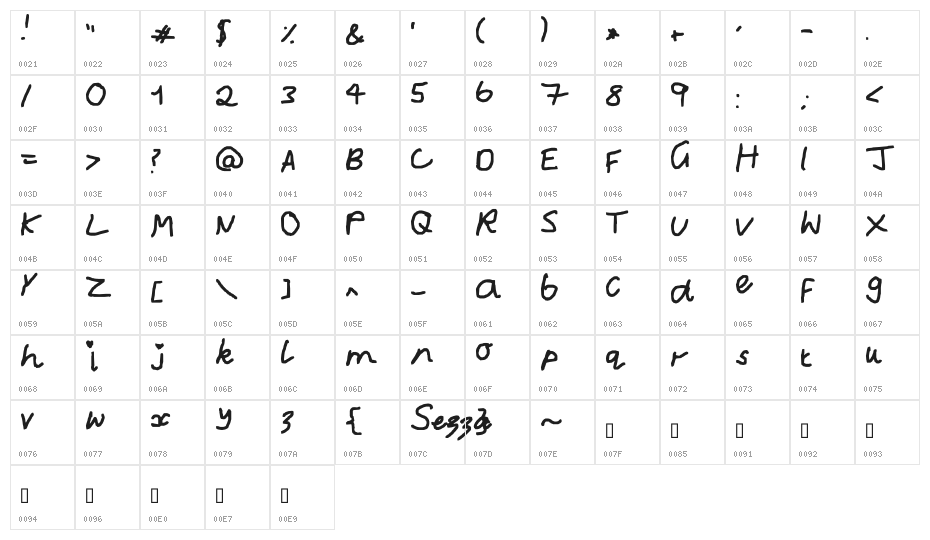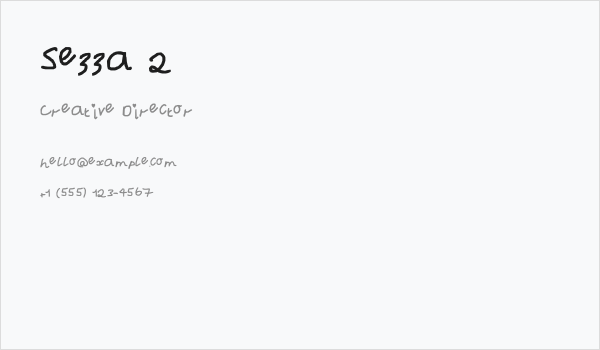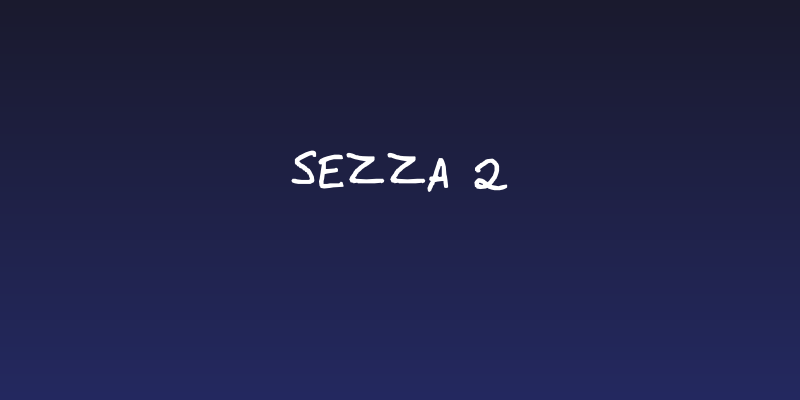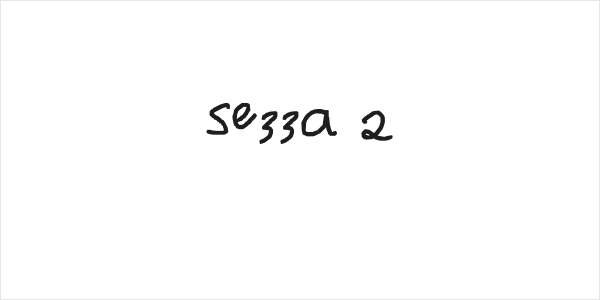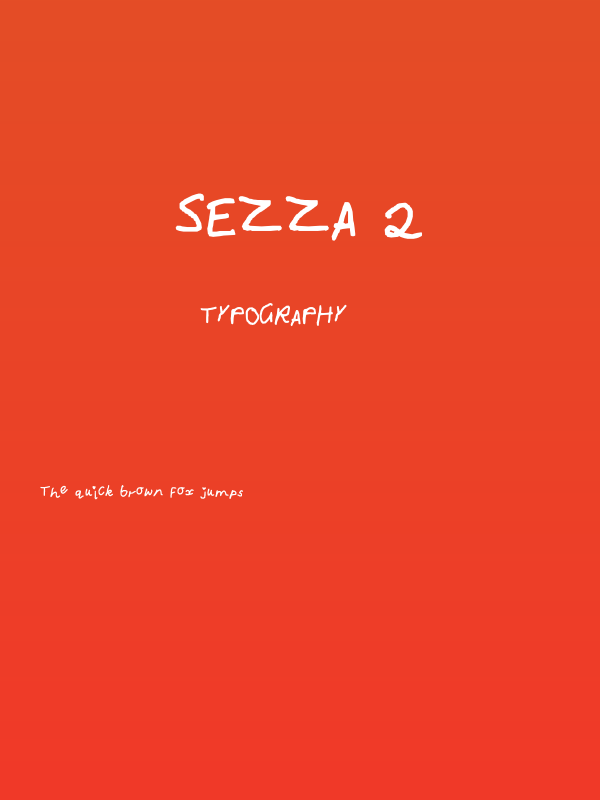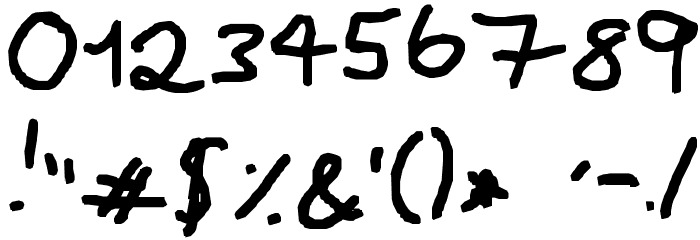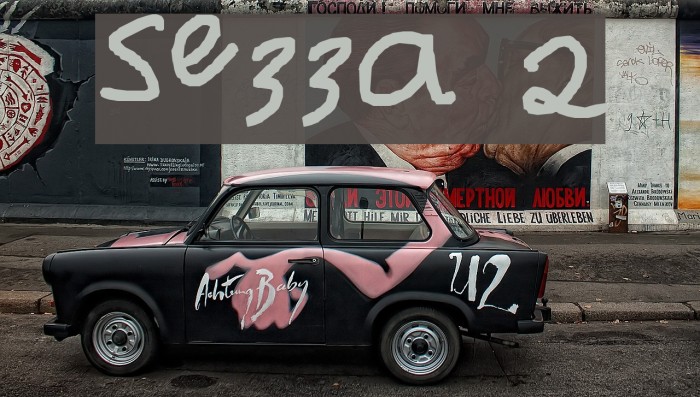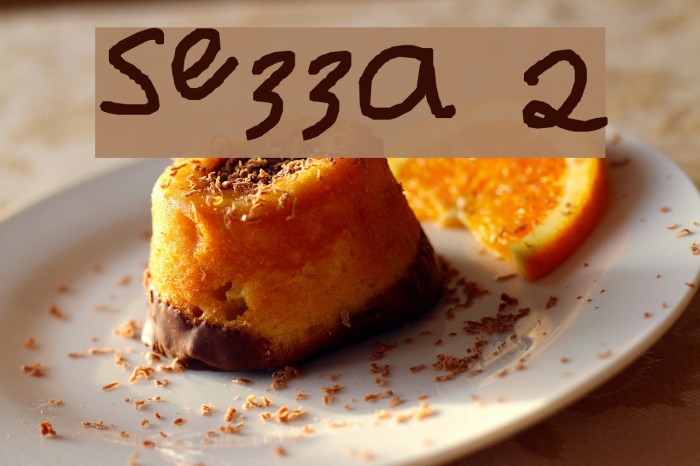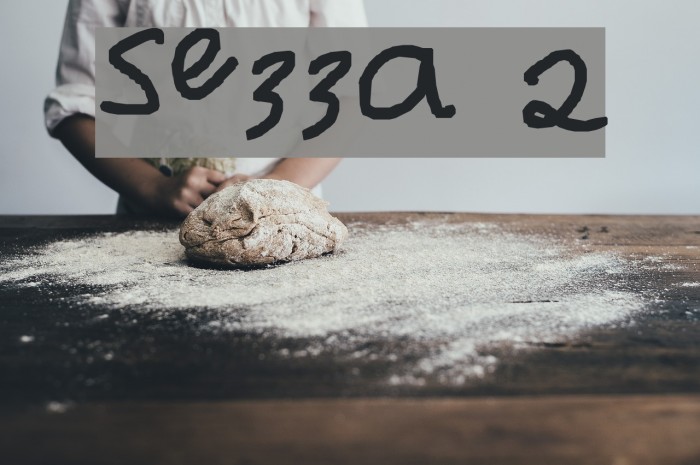
Sezza 2 Font
Sezza 2 Description
This font features a casual, handwritten style with a playful and informal appearance. The characters are slightly uneven, mimicking the natural flow of handwriting. The strokes are bold and consistent, giving it a strong presence on the page. The uppercase and lowercase letters maintain a cohesive look, while the numbers and special characters blend seamlessly with the overall style. This font exudes a friendly and approachable vibe, making it suitable for projects that require a personal touch.
SEZZA-2 UPPERCASE
SEZZA-2 LOWERCASE
SEZZA-2 OTHER CHARS